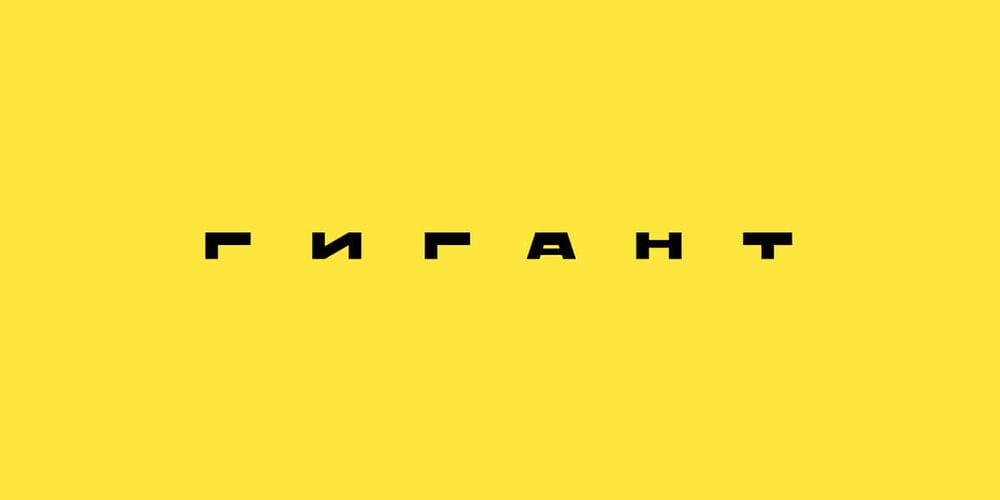
FE Gigant Font Family was designed by Egor Stremousov and published by Egor Stremousov. FE Gigant contains 1 styles and family package options. The font has a pronounced decorative effect and is suitable for the gaming, publishing and film industry. The Cyrillic alphabet conveys the spirit and atmosphere of Soviet constructivism. It is well suited for names of Soviet (or pseudo-Soviet) trademarks, large headings, signs, giant letter structures, etc. The Latin part is not tied to the Soviet period and can be applied in a wider range. Sharp angles and unnatural proportions create dynamics, strength and heaviness.